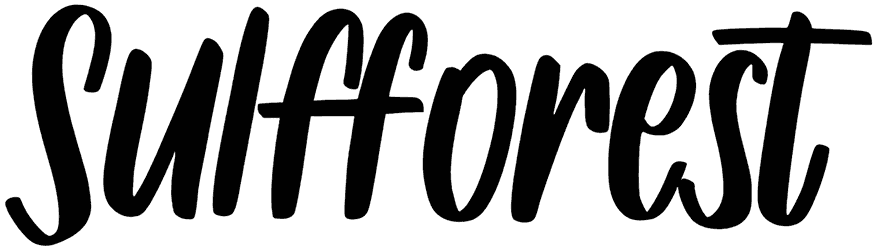
Sulfforest Font
Sulfforest is a powerful tool for you if you want to add beauty to your designs without breaking a sweat. This handwritten font has a fine pen texture that can play a role in any personalized project. So it’s better to keep it in your library and add it to your design whenever you need a human character.
Sulfforest doesn’t include numbers, but it’s still a complete suite for designing wedding invitations, greeting cards, and social media.